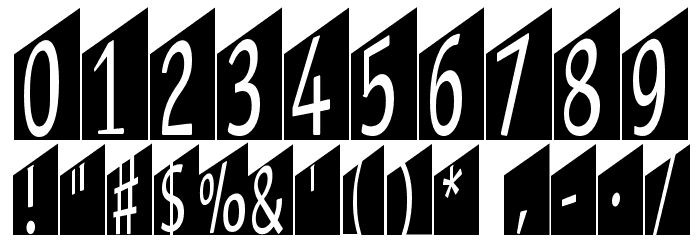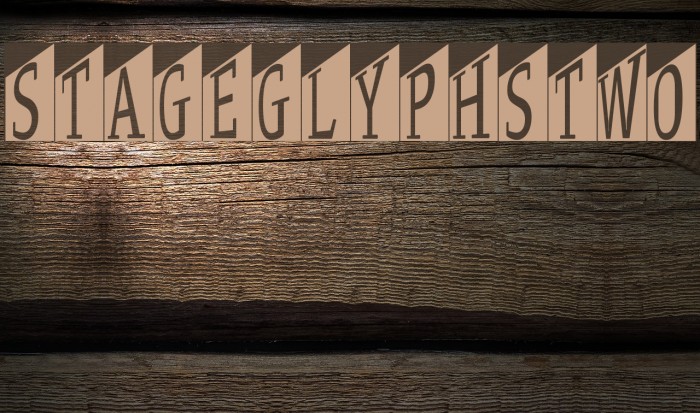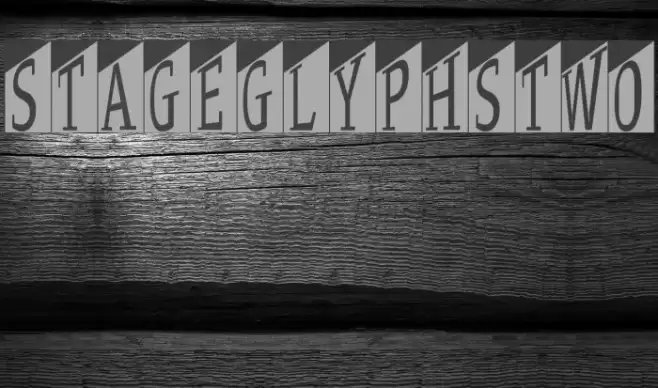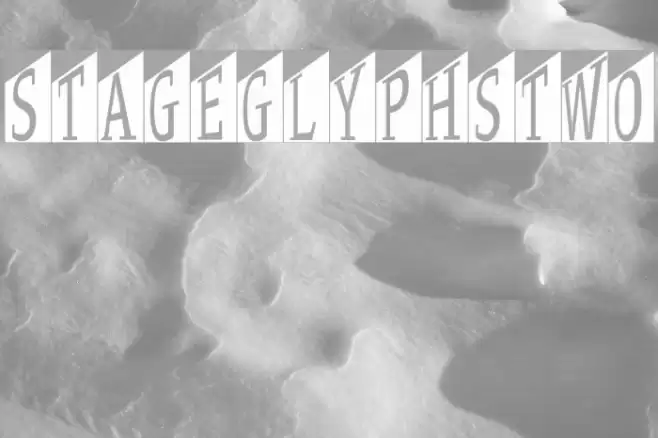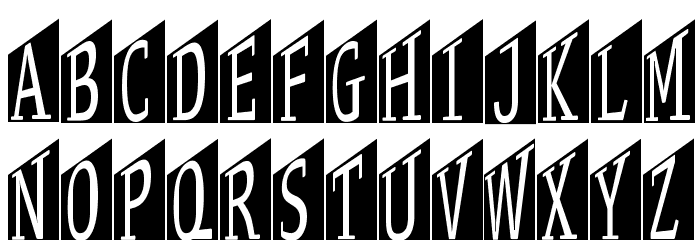
StageGlyphsTwo Font
StageGlyphsTwo Description
This font features a bold and dramatic style with a distinct shadow effect that gives each character a three-dimensional appearance. The letters are uppercase and lowercase, with numerals and a variety of special characters. Each character is set against a black background, enhancing the contrast and making the white letters stand out prominently. The font has a modern and edgy feel, suitable for attention-grabbing designs. The characters are tall and narrow, with sharp edges and clean lines, contributing to a sleek and contemporary look.
| Proposed Projects | Ideal for posters, headlines, branding, and any design requiring a strong visual impact. |